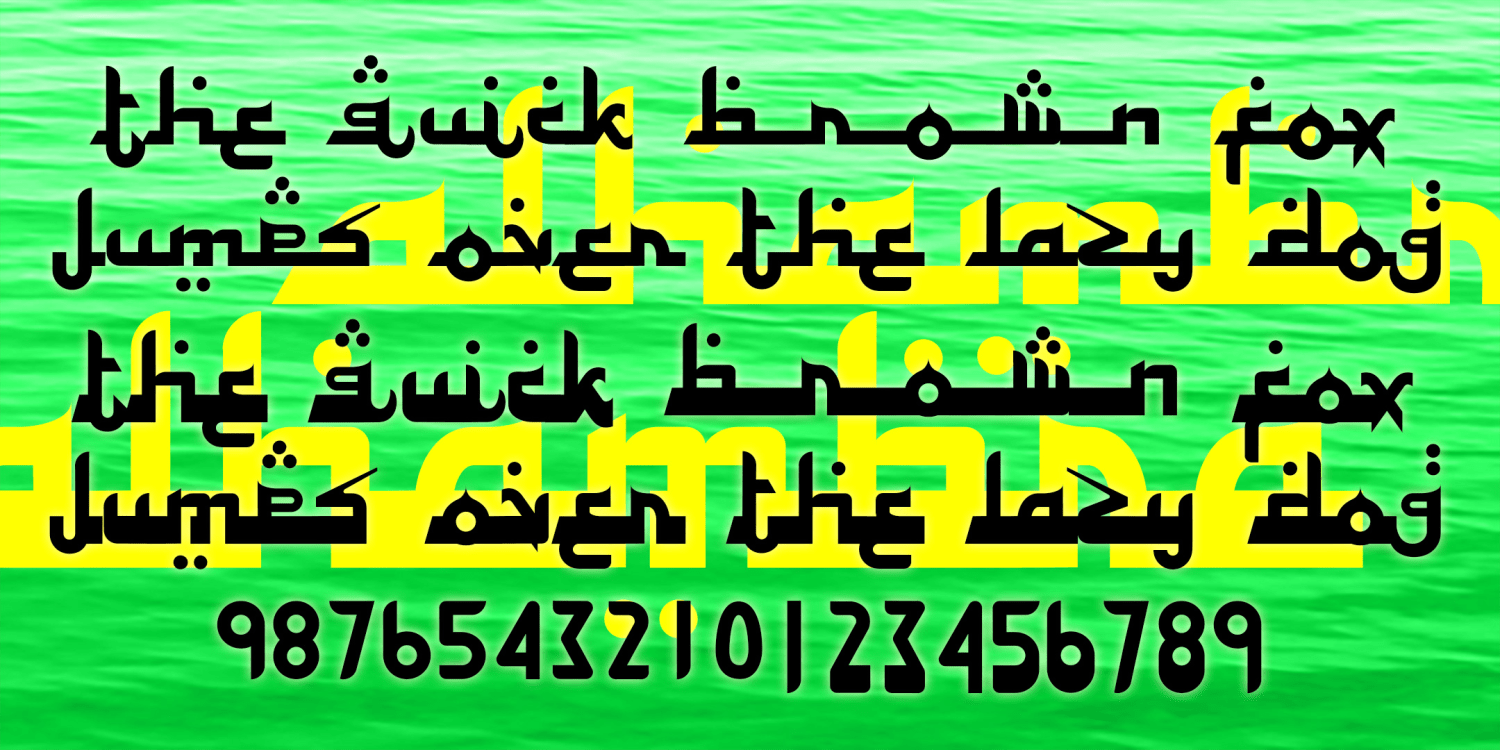
Alhambra
ALHAMBRA was inspired by Arabic calligraphy in the Kufi style. There are two varieties, Regular and Deep. Each has decorative endcaps at ^ ~ { and } plus a lengthening element at _. (You can see the latter in the words "brown" in the illustration.) The upper- and lowercase letters vary somewhat; if you type in all lowercase with an uppercase letter at the end, you will get the best results, a better simulation of right-to-left script.